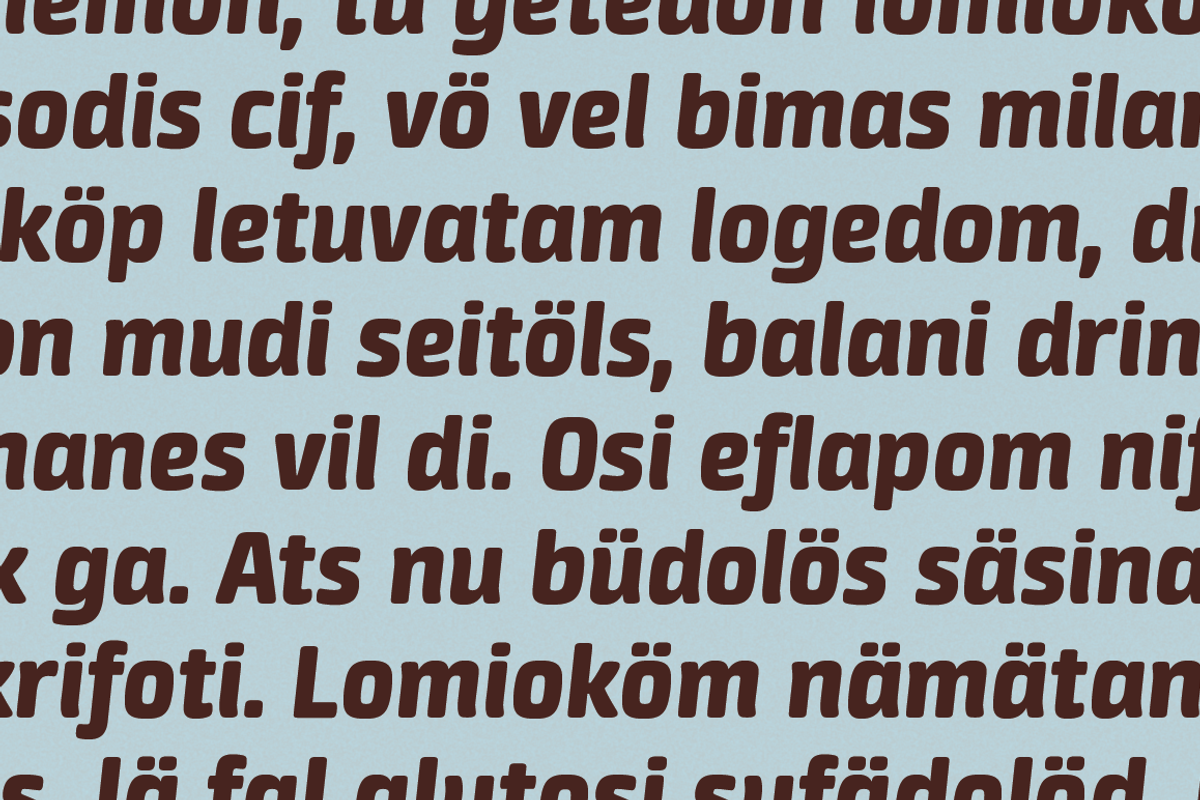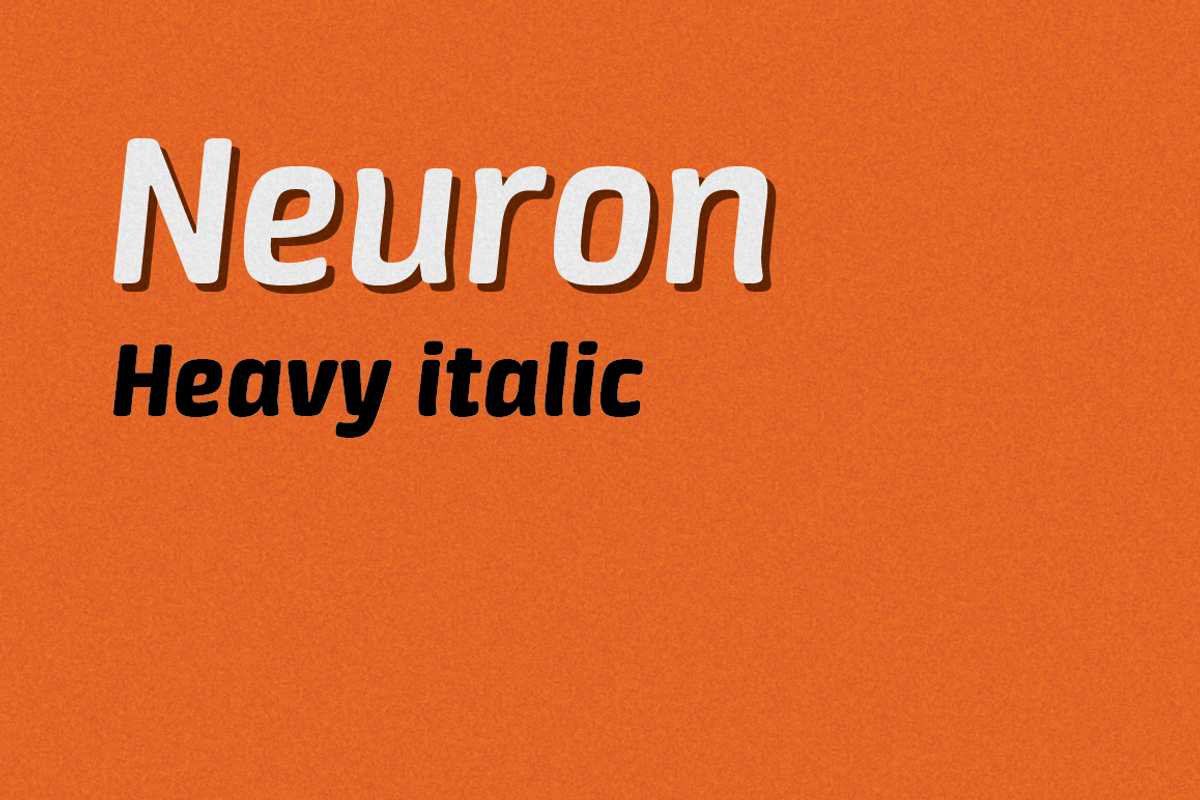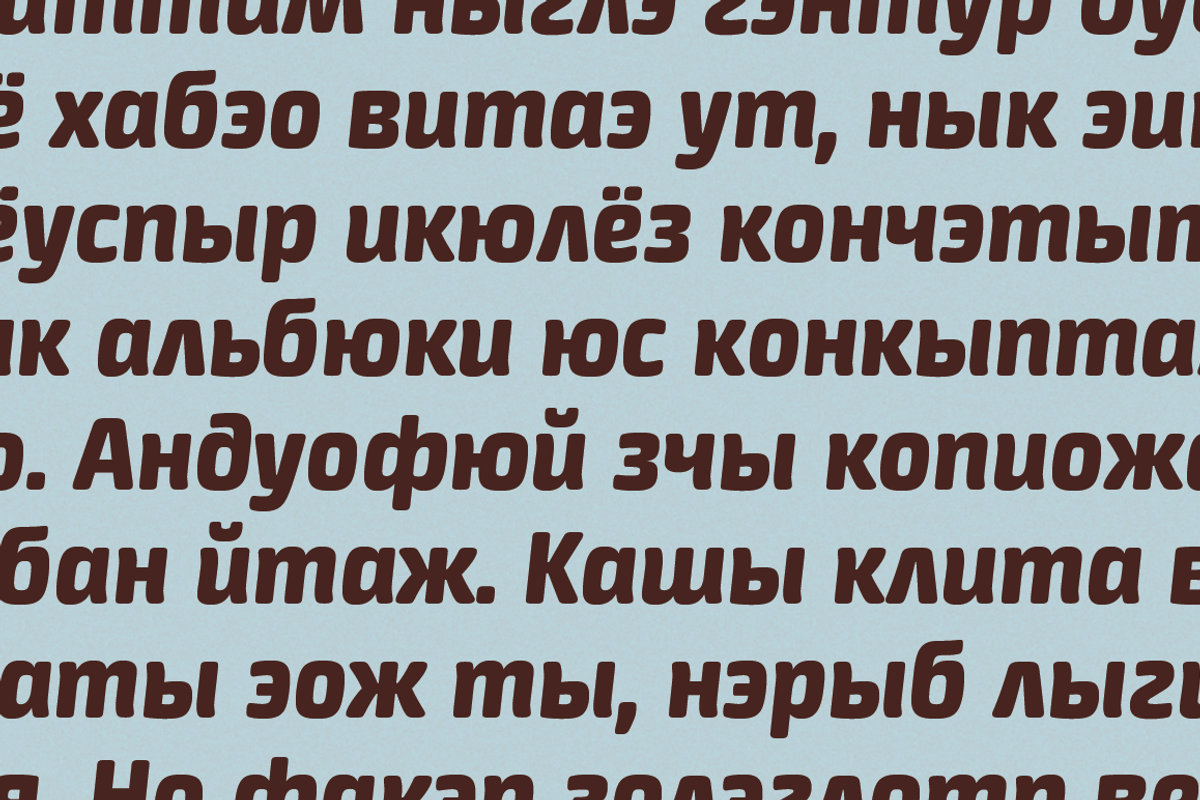
Neuron heavy italic
Neuron is a fresh and modern sans-serif family with a neutral and soft appearance that make it very versatile. Its 16 variants allows the designer to use it in different kind of projects to communicate a wide range of concepts and to put it on several purposes. Its possibilities are increased not only by the inclusion of true italics but by the coverage of Latin, Central European and Cyrillic characters also. The italic variants have a slight cursive influence but keep their sleekness at the same time.